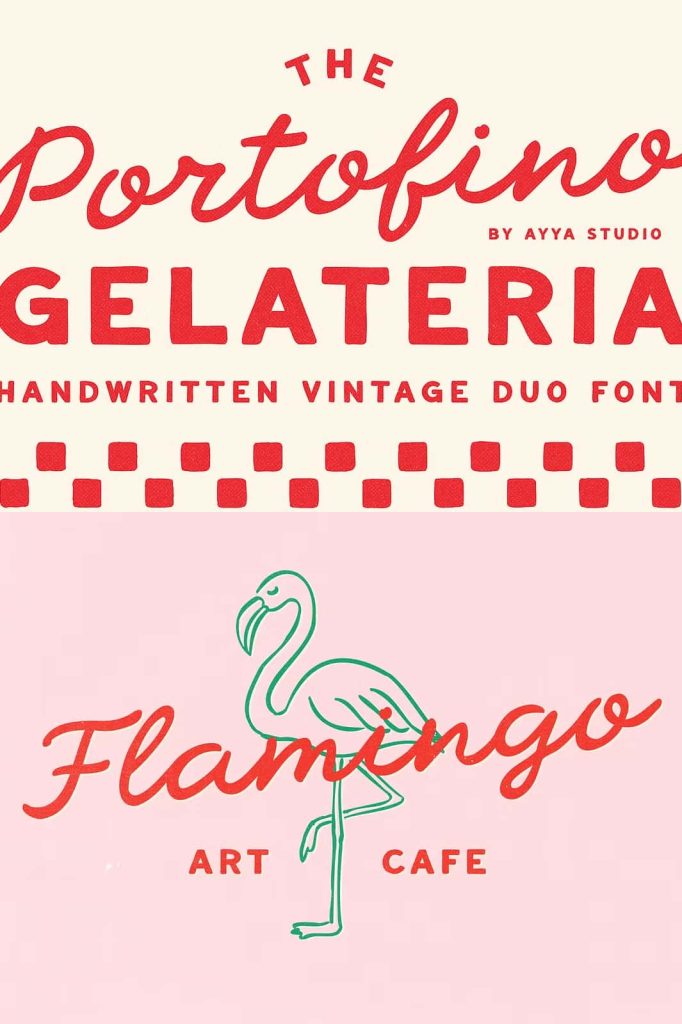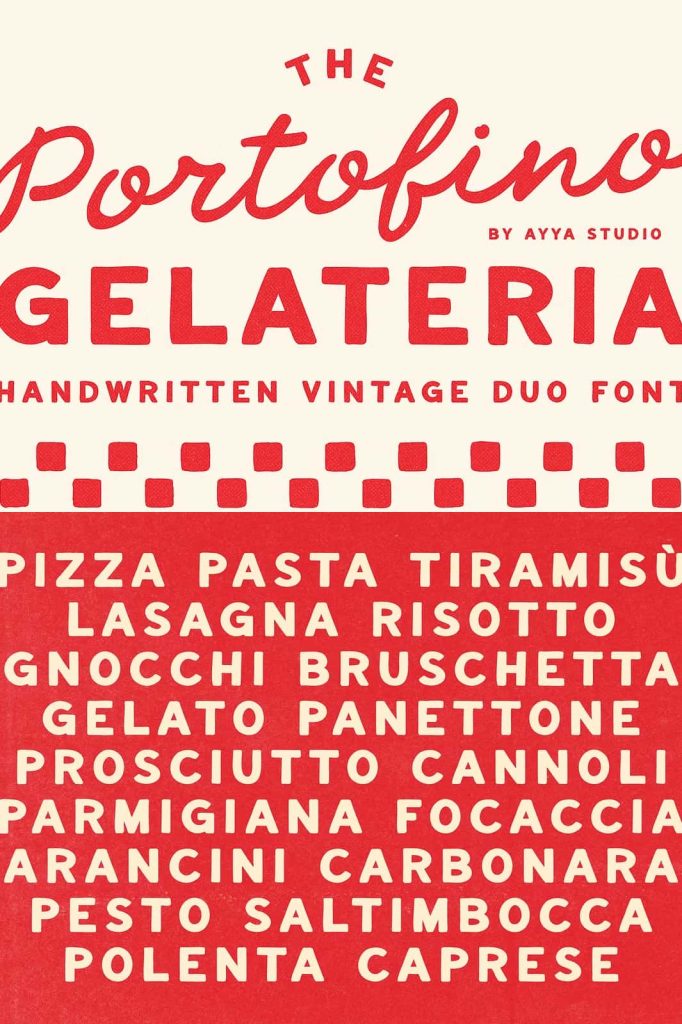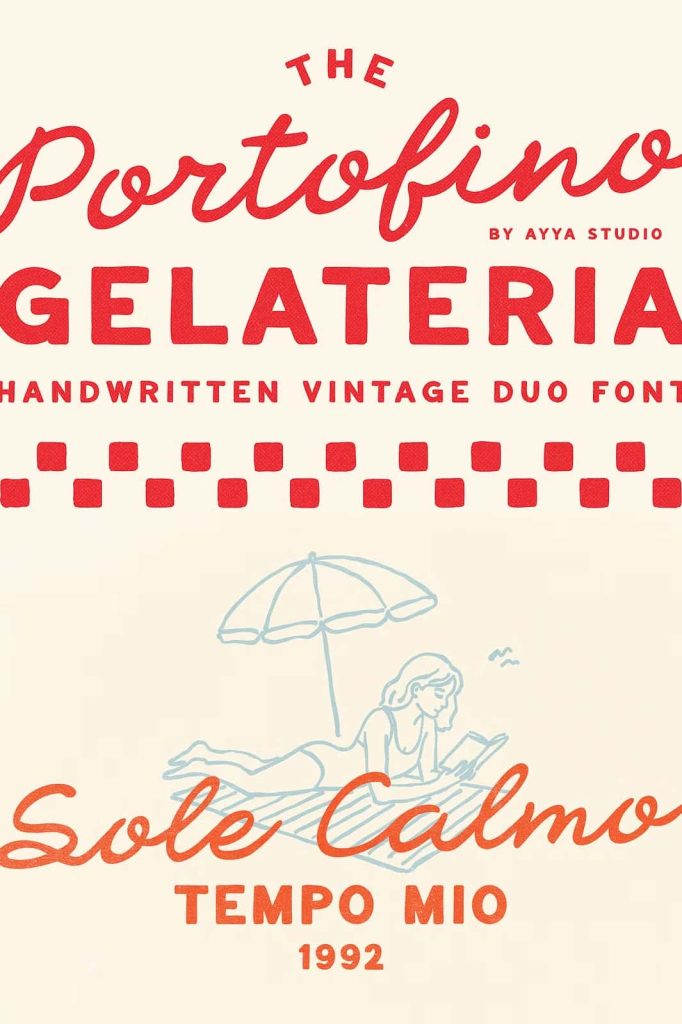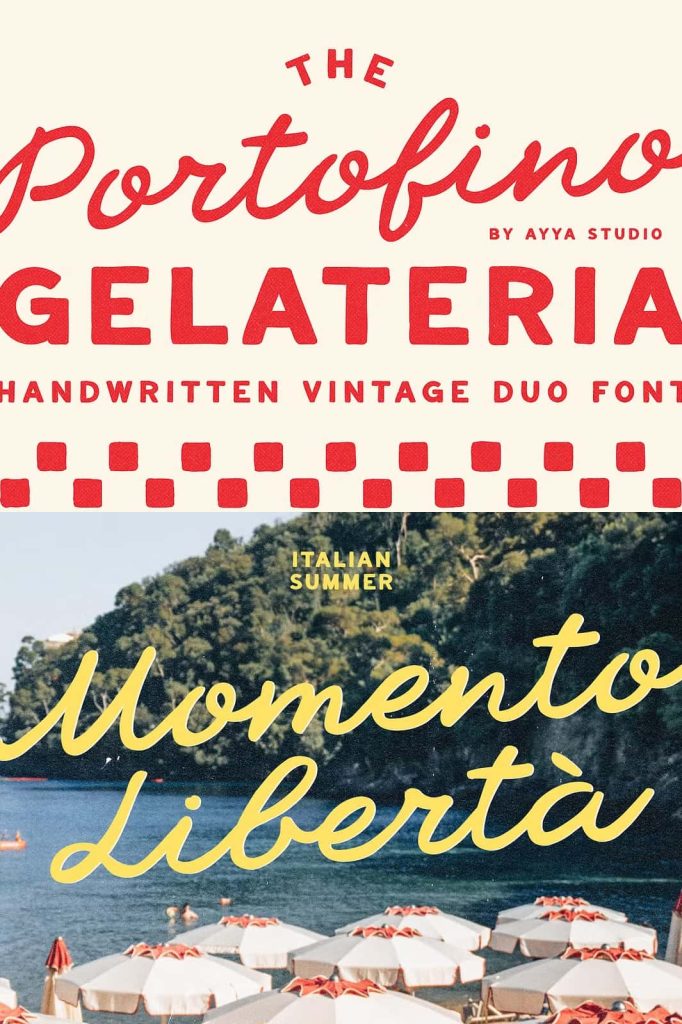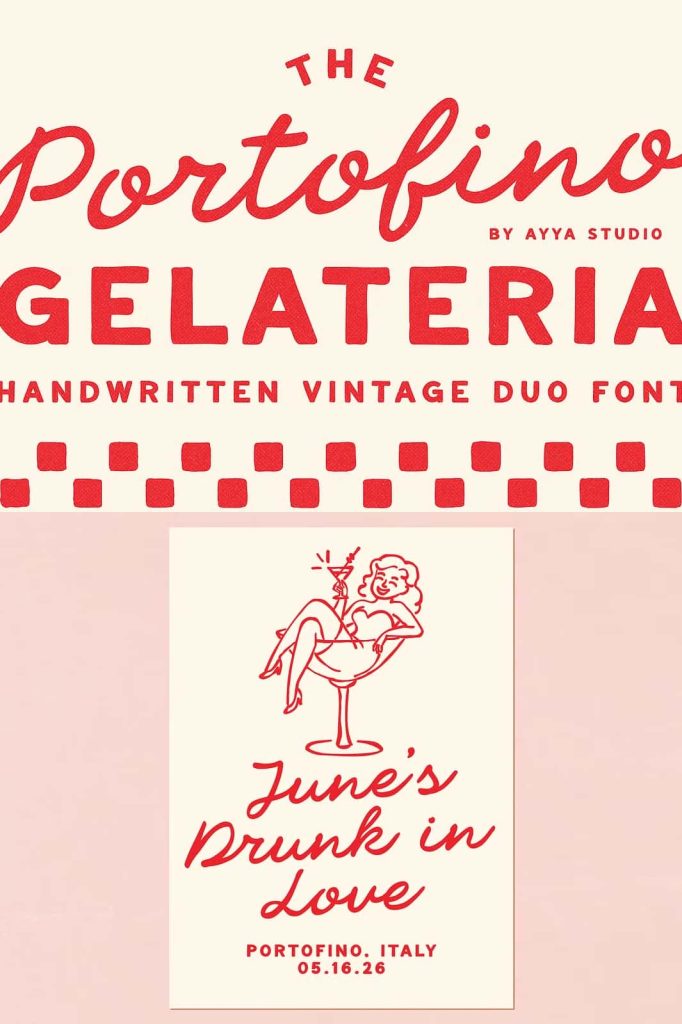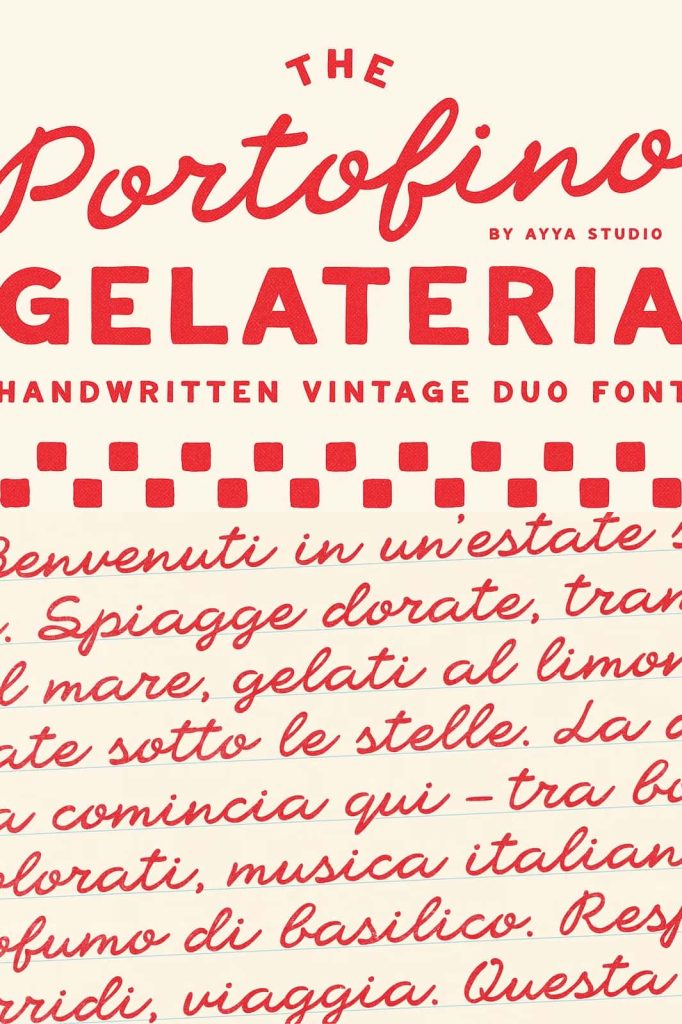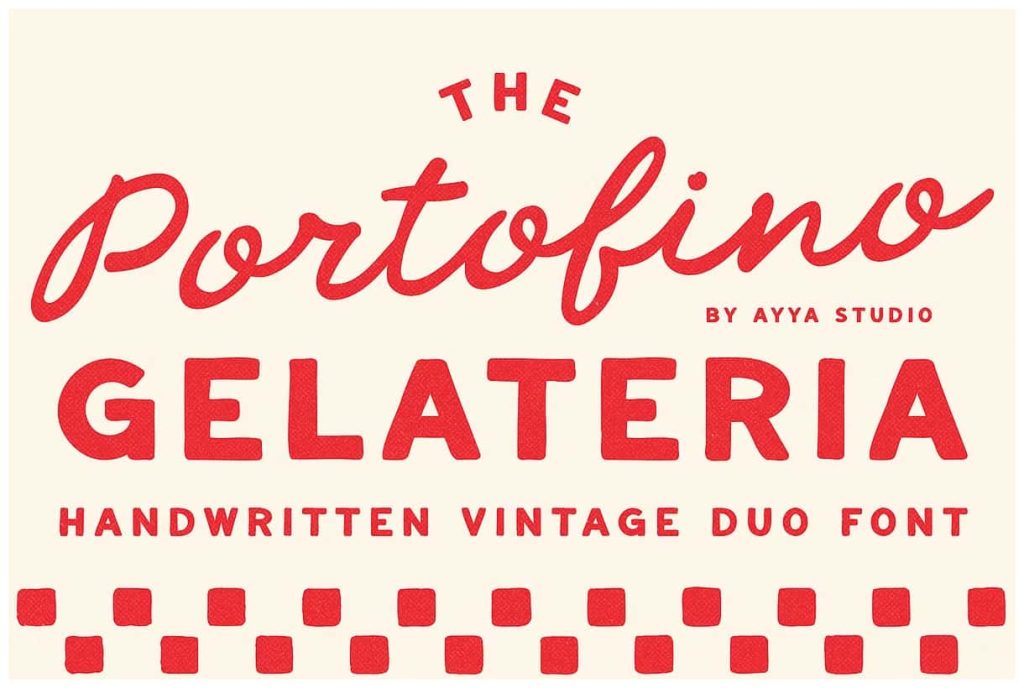
Portofino Gelateria Font Duo: A Nostalgic Italian-Inspired Typeface
Portofino Gelateria font duo captures the warmth and charm of a sunny seaside escape. This typeface brings to life the feeling of sitting in a cozy café by the coast, enjoying a refreshing treat while surrounded by vintage Italian signage and timeless design. It transforms that atmosphere into a visual language that feels both inviting and expressive.
Inspired by classic Italian posters, old shop signs, and elegant wedding menus, Portofino Gelateria delivers a rich sense of nostalgia. It allows designers to recreate the beauty of another era while maintaining a fresh and modern touch. The result is a font duo that feels authentic, emotional, and visually engaging.
A Hand-Drawn Typeface with True Character
Portofino Gelateria stands out because it embraces the imperfections of hand-drawn design. Each letter reflects the natural movement of the hand, creating a typeface full of personality. Instead of perfect symmetry, the font celebrates irregular lines, subtle variations, and organic curves.
These imperfections give the font its soul. They create a sense of authenticity that digital precision often lacks. Designers can use this quality to add warmth and individuality to their work, making every project feel more human and relatable.
Expressive Details That Add Depth
The small inconsistencies in stroke weight and spacing enhance the overall character of the font. These details bring depth and richness to the typography, allowing it to stand out without relying on heavy decoration. Each word feels crafted rather than generated, which adds emotional value to the design.
This expressive nature makes Portofino Gelateria ideal for storytelling through design. It helps convey mood, atmosphere, and personality in a way that feels natural and engaging.
A Lively Script Paired with a Soft Sans Serif
The font duo includes two complementary styles that work together seamlessly. The script font flows with energy and elegance, while the sans serif provides a calm and balanced foundation. This pairing allows designers to create contrast and hierarchy within their layouts.
The script font features fluid strokes and playful movement. It captures attention quickly and adds a decorative touch to headlines, logos, and key elements. In contrast, the sans serif uses softer shapes and a slightly naive style to maintain readability and structure.
Create Harmony Through Contrast
By combining these two styles, you can achieve a harmonious balance between expression and clarity. Use the script to highlight important words or create visual interest, and rely on the sans serif for supporting text and information. This approach ensures that your design remains both attractive and functional.
The contrast between the lively script and the gentle sans serif also adds visual rhythm. It guides the viewer’s eye through the content while maintaining a cohesive look.
Inspired by Vintage Italian Design
Portofino Gelateria draws inspiration from the golden era of Italian design. It reflects the aesthetic of traditional signage, handcrafted posters, and classic branding found in coastal towns. These influences give the font a timeless quality that resonates across different design styles.
The nostalgic feel of the font makes it perfect for projects that aim to evoke emotion and memory. It connects with audiences by reminding them of travel, culture, and simple pleasures. This emotional connection adds value to branding and storytelling.
Perfect for Elegant and Creative Projects
Designers can use Portofino Gelateria for a wide range of applications. It works beautifully for wedding invitations, restaurant branding, packaging, editorial layouts, and social media content. Its versatility allows it to adapt to both formal and casual settings.
The font duo enhances visual identity by adding a distinctive and memorable style. It helps brands communicate warmth, creativity, and authenticity in a way that feels effortless.
Versatility Across Print and Digital Media
Portofino Gelateria performs well in both print and digital formats. Its hand-drawn quality remains clear and appealing across different sizes and resolutions. Whether used on a printed menu or a website header, the font maintains its charm and readability.
This adaptability makes it a reliable choice for designers who work across multiple platforms. It ensures consistency while still allowing room for creative exploration.
Build a Unique Visual Identity
With Portofino Gelateria, you can create a strong and recognizable visual identity. The font’s distinctive style helps your designs stand out while maintaining a cohesive look. It supports branding efforts by delivering a consistent tone and aesthetic.
By combining nostalgic inspiration with modern usability, this font duo gives you the tools to craft designs that feel both timeless and fresh.
Choosing this font means choosing a design approach that values character and storytelling. It allows you to create visuals that feel warm, inviting, and memorable. For designers who want to capture the charm of vintage Italian aesthetics, Portofino Gelateria delivers an exceptional and inspiring solution.